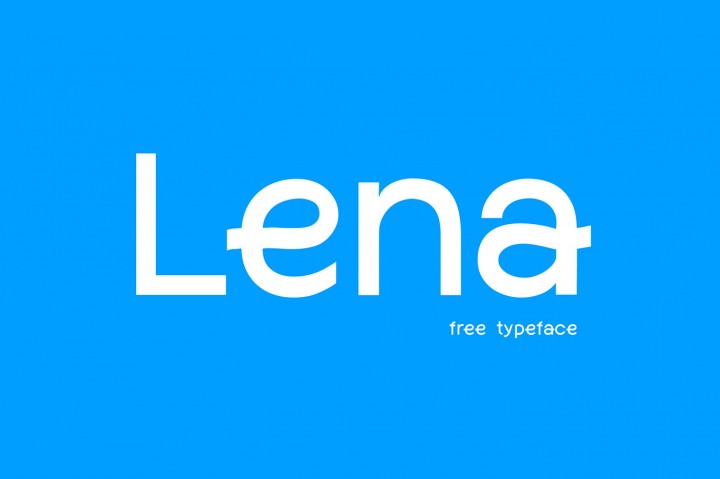
Free Font Lena Typeface
Take a look at this adorable free font lena typeface. The Hungry JPEG has created this amazing and beautiful font. Amaze your fellow designers and create stunning designs with this fancy font.